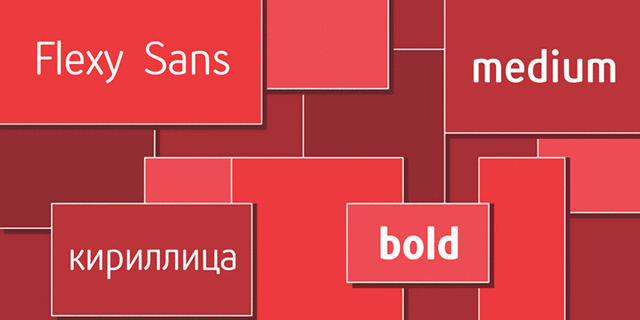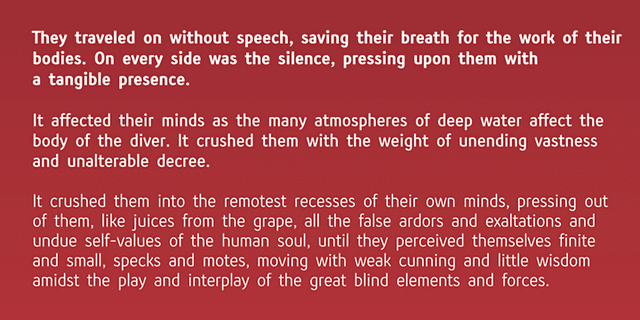
About Flexy Sans is a good and comfortable humanistic sans serif, that suitable both for text and headings. The typeface was designed by Andrei Kudryavtsev in 2011.
Hit of 2000s Flexy Sans supports 29 languagesUkrainian, English, Russian, Belarusian, Serbian, Bulgarian, Karakalpak, Uzbek (Lat.), Abazin, Avar, Agul, Adyghe, Darginsky, Ingush, Kabardino-Circassian, Kabardian, Karachay-Balkar, Kumyk, Lak, Lezghian, Macedonian, Mordovian-Moksha, Mordovian-Erzya, Nogai, Rutulian, Tabasaran, Tatar, Tsakhur, Chechen Functions of font family Flexy SansTypeface use in layout:
Associations for font family Flexy SansTypeface personality and character:
Soft, smooth, confidence, laconic, available, comfortable, urban, accurate, strict, modern, universal, simple, flat, technically, stable, static, reliable, important, convincing